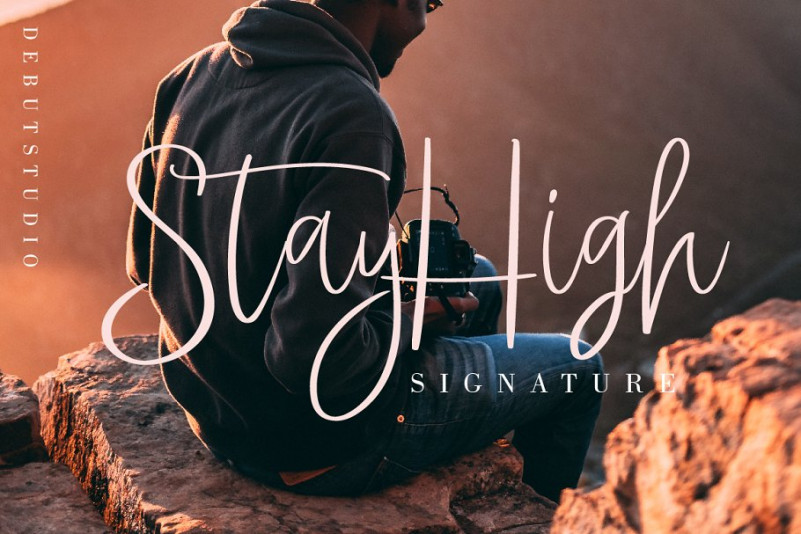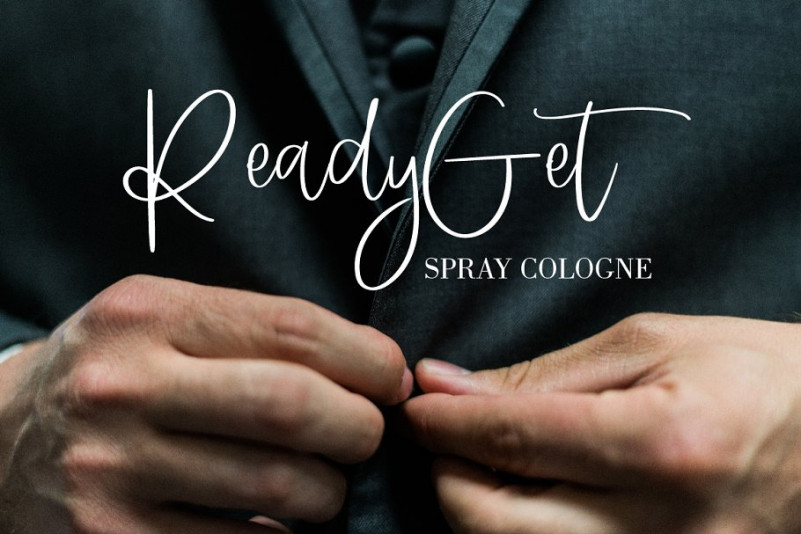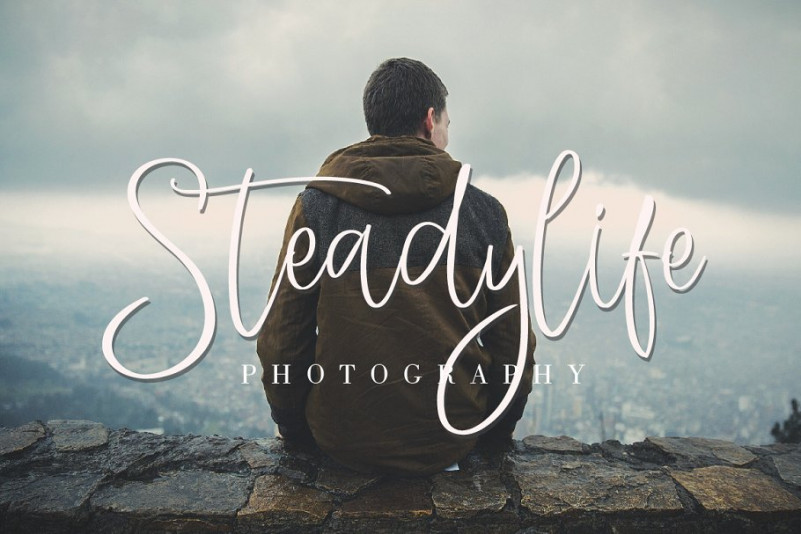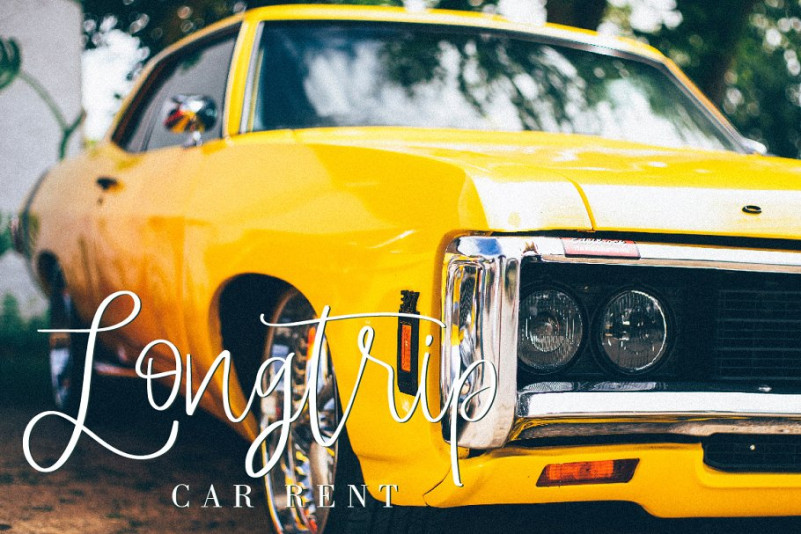
StayHigh Signature Font
Introducing Stayhigh Script
This font inspired from my handlettering, that look fancy and cute, Suitable for the design of holiday cards, postcards, brochures, invitations, and other interesting design purposes.